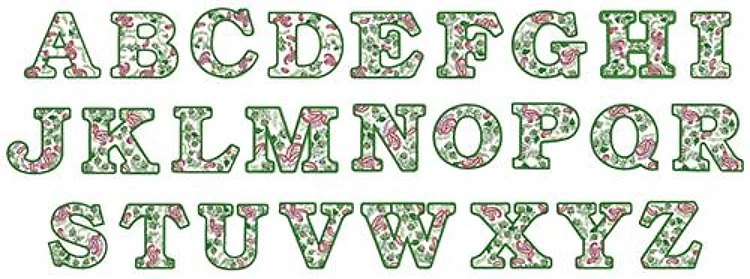
Great Notions is happy to present PAISLEY ALPHABET machine embroidery font which has Decorative machine embroidery font with large letters filled with a colorful paisley pattern, ideal for vibrant projects on clothing and home decor items. Available in PES, DST, and other formats. included. If you would like to view more embroidery fonts and alphabets please search our embroidery fonts page.